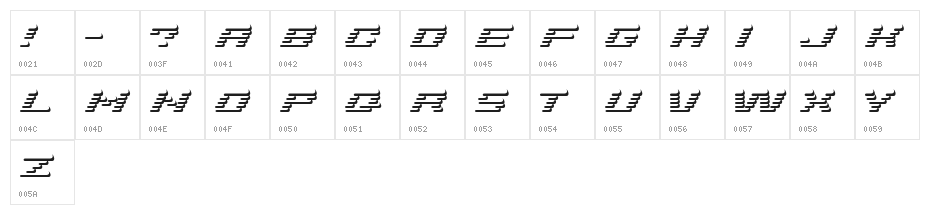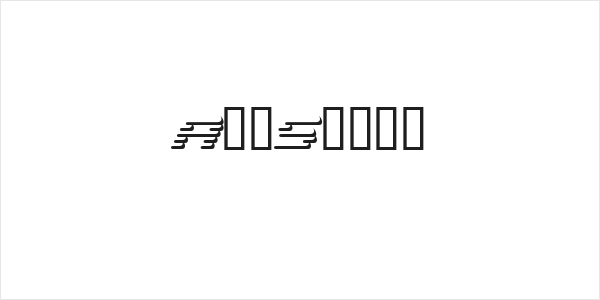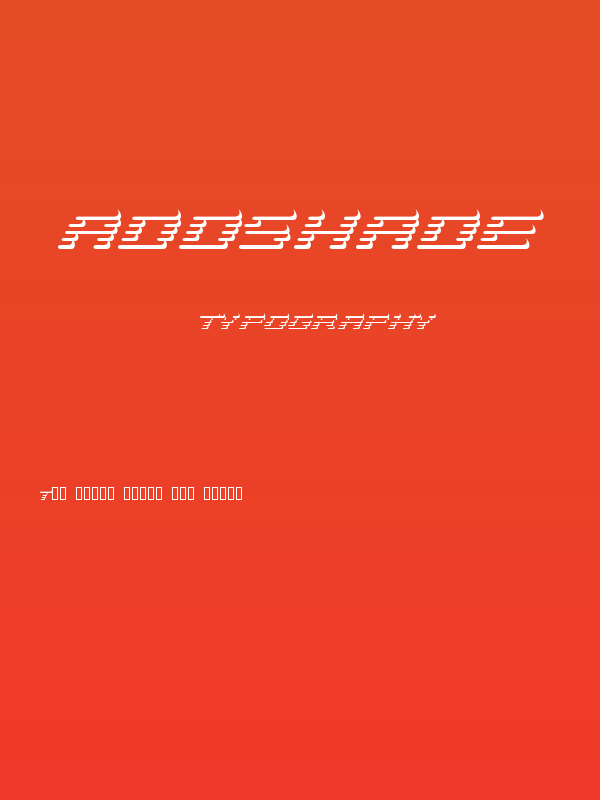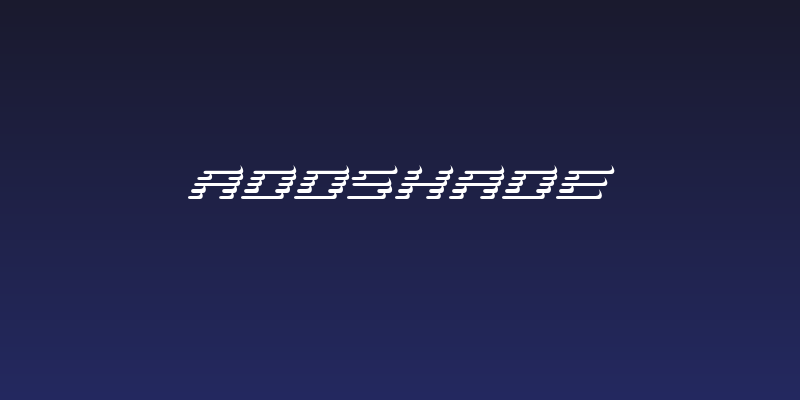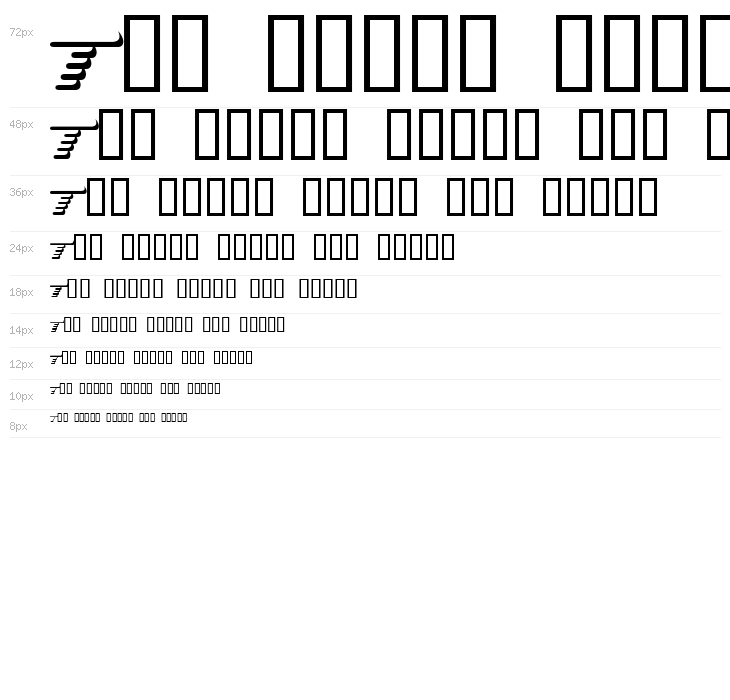
AddShade Font
AddShade Description
This font features a dynamic and energetic style with a distinct slanted and italicized appearance. The uppercase letters exhibit a bold, streamlined design with horizontal lines that suggest motion and speed. The lowercase letters are not visible, but the overall style suggests they would complement the uppercase with similar characteristics. The numbers and special characters are not discernible in this image. This font is ideal for projects that require a sense of movement or modernity, such as sports branding, automotive advertisements, or dynamic event posters.
| Proposed Projects | Ideal for sports branding, automotive advertisements, and dynamic event posters. |